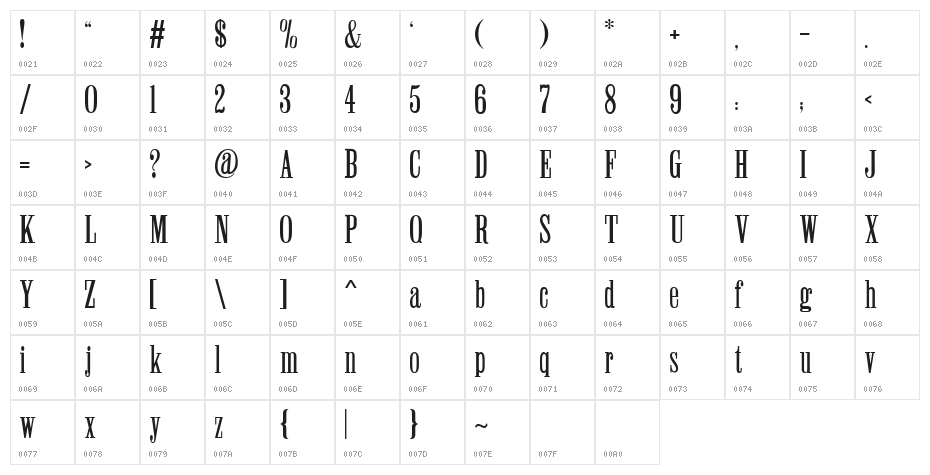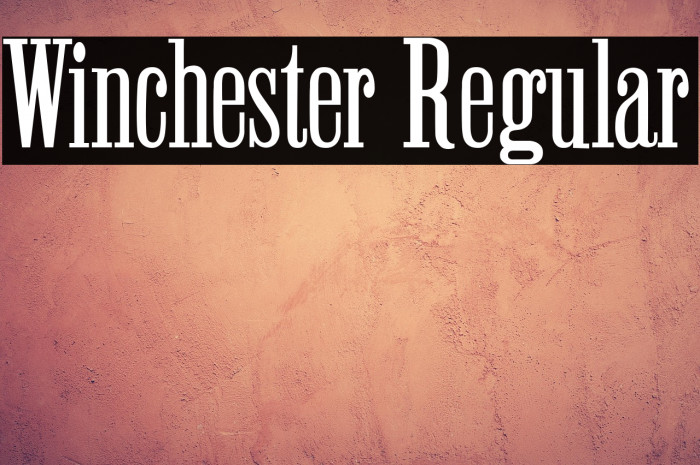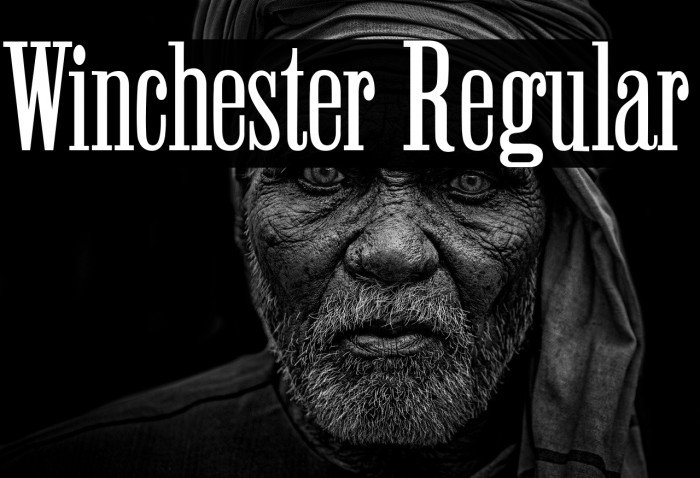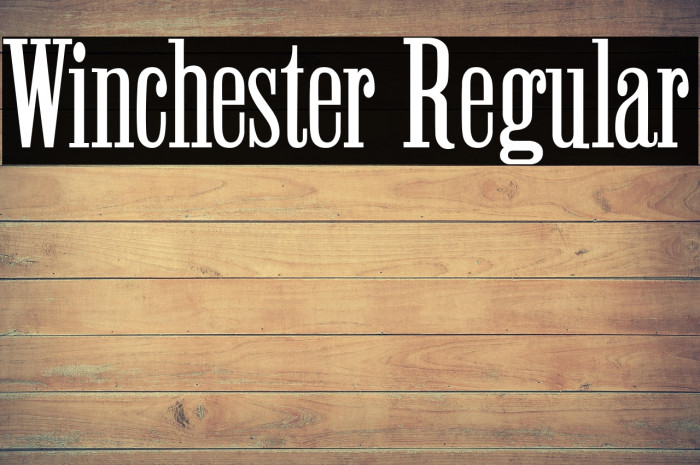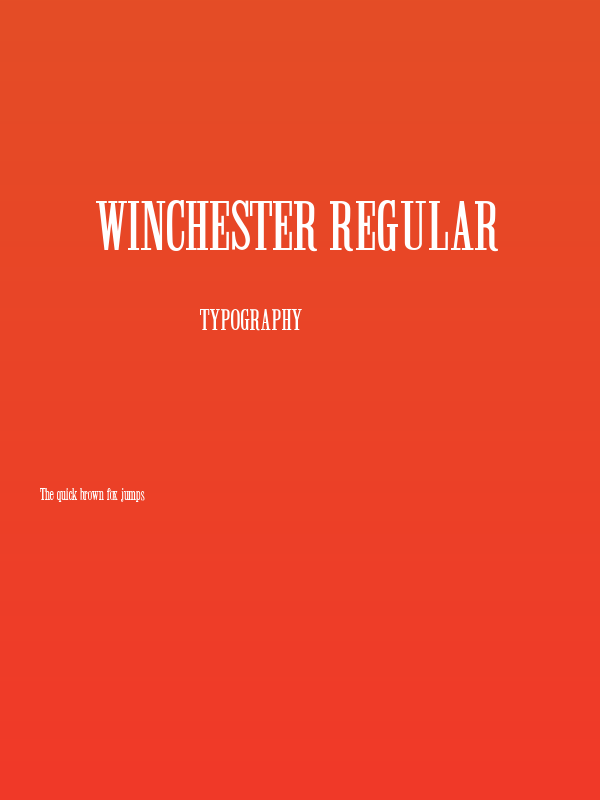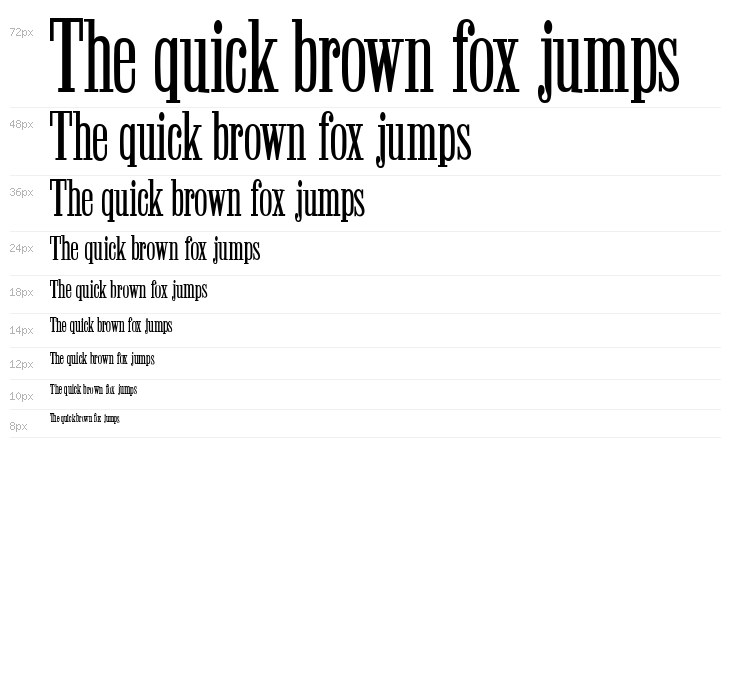
Winchester Regular Font
Winchester Regular Description
This font features a bold and commanding presence with its tall, narrow letterforms and strong vertical emphasis. The serifs are pronounced, adding a touch of elegance and tradition to the overall design. The uppercase letters are particularly striking, with a sense of authority and sophistication. The lowercase letters maintain a consistent style, offering readability while preserving the font's distinctive character. Numbers and special characters are crafted with the same attention to detail, ensuring a cohesive look across all text elements. The font's high contrast between thick and thin strokes enhances its visual impact, making it suitable for attention-grabbing headlines and titles.
| Proposed Projects | Ideal for editorial design, book covers, posters, and branding projects that require a classic yet impactful typeface. |